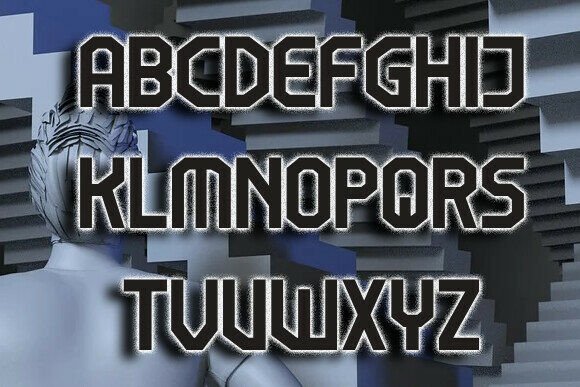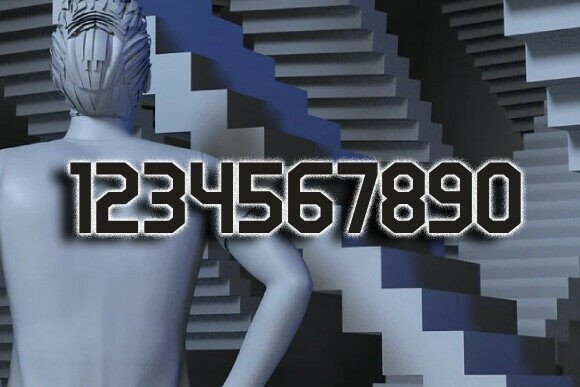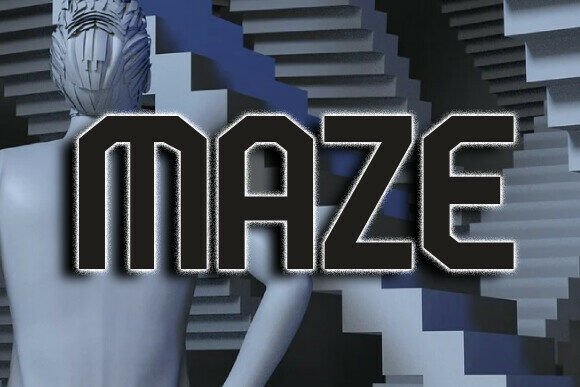
Introduction to Never Ending Font
Never Ending is a bold and futuristic display font with sharp edges and a tech-inspired design.
Its angular, geometric structure and sci-fi vibes make it a great fit for gaming titles, digital projects, dystopian posters, and tech branding It commands attention with its edgy presence and modern attitude.
Key Features of Never Ending Font
Why Choose Never Ending Font?